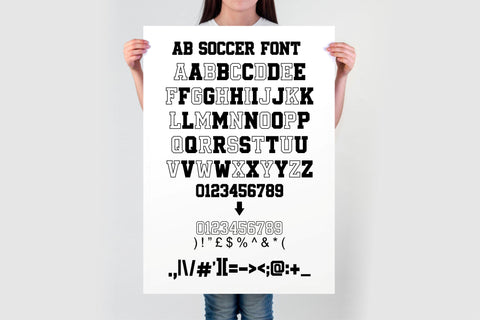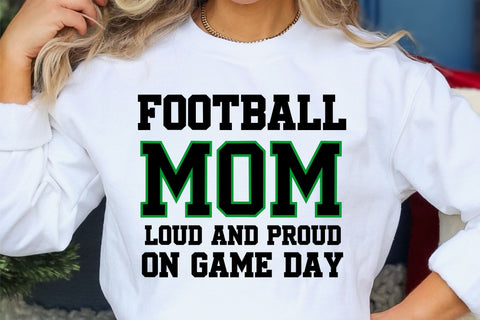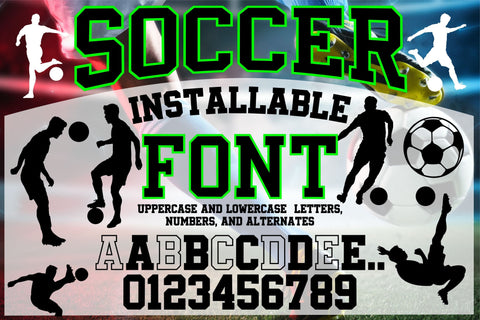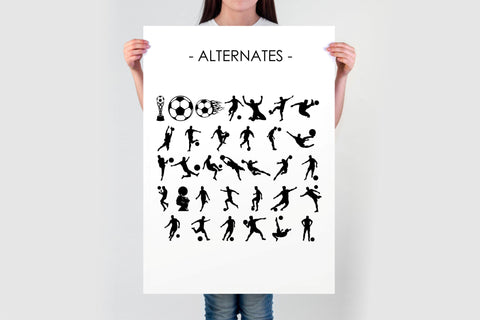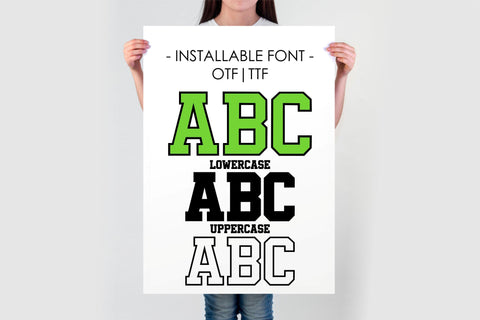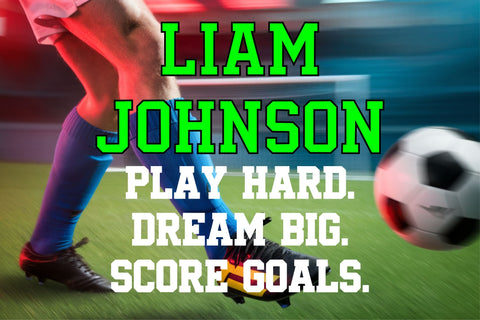
The Soccer Installable Font is a must-have for football fans and designers alike. With bold uppercase and lowercase characters, numbers, and sports silhouettes, this font captures the passion of the game. Includes OTF and TTF formats for easy installation and cut files (SVG, DXF, EPS, PDF) for Cricut and Silhouette users. Perfect for sportswear, invitations, and team branding!